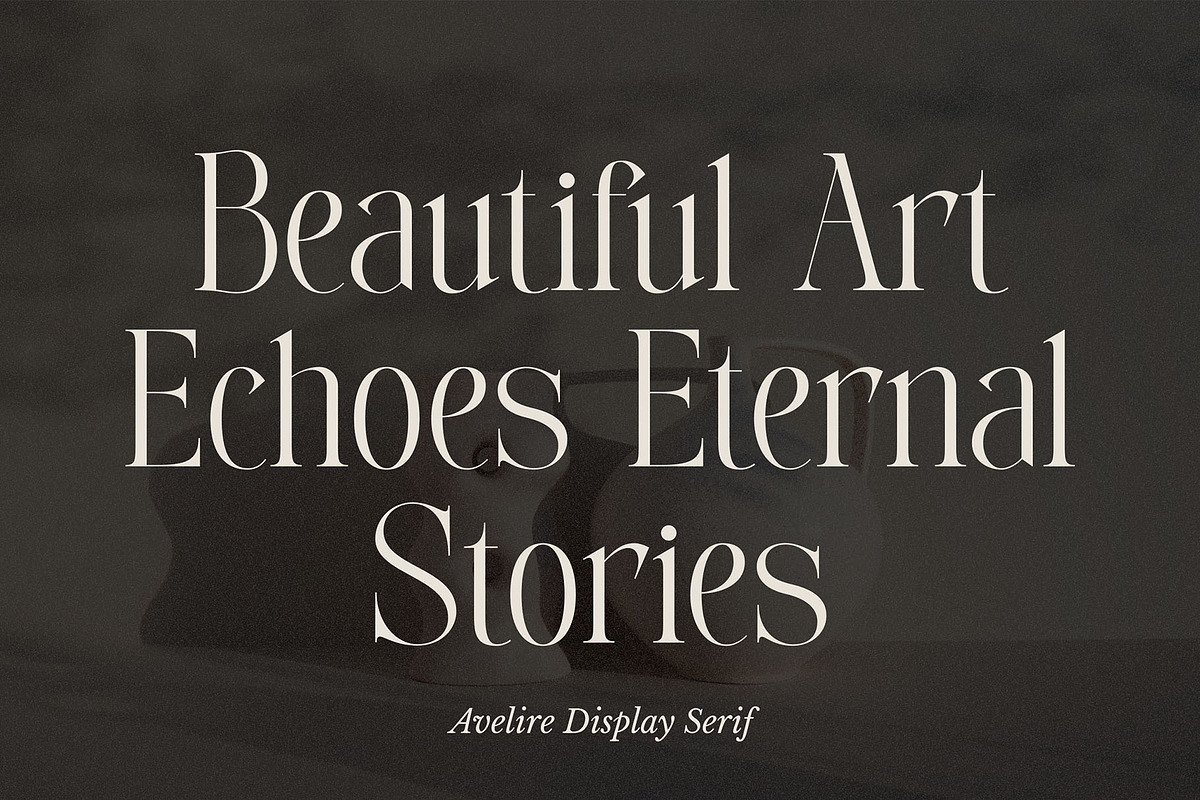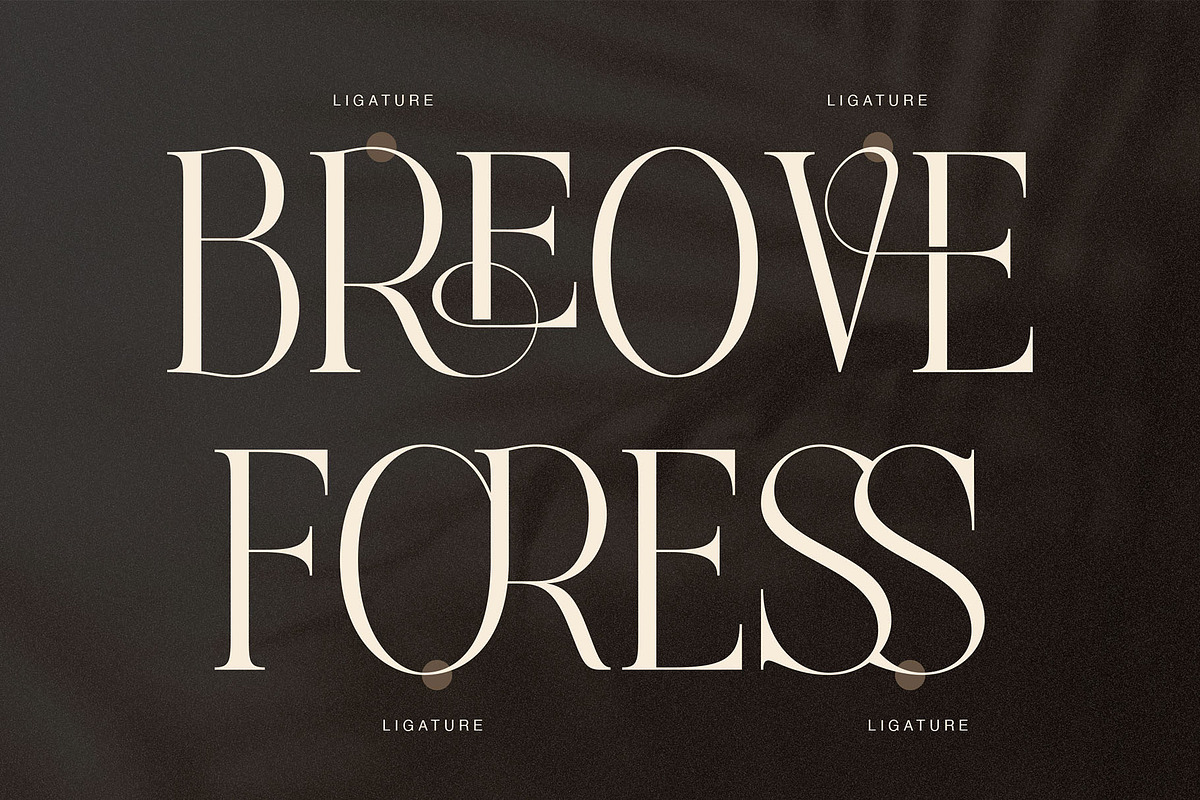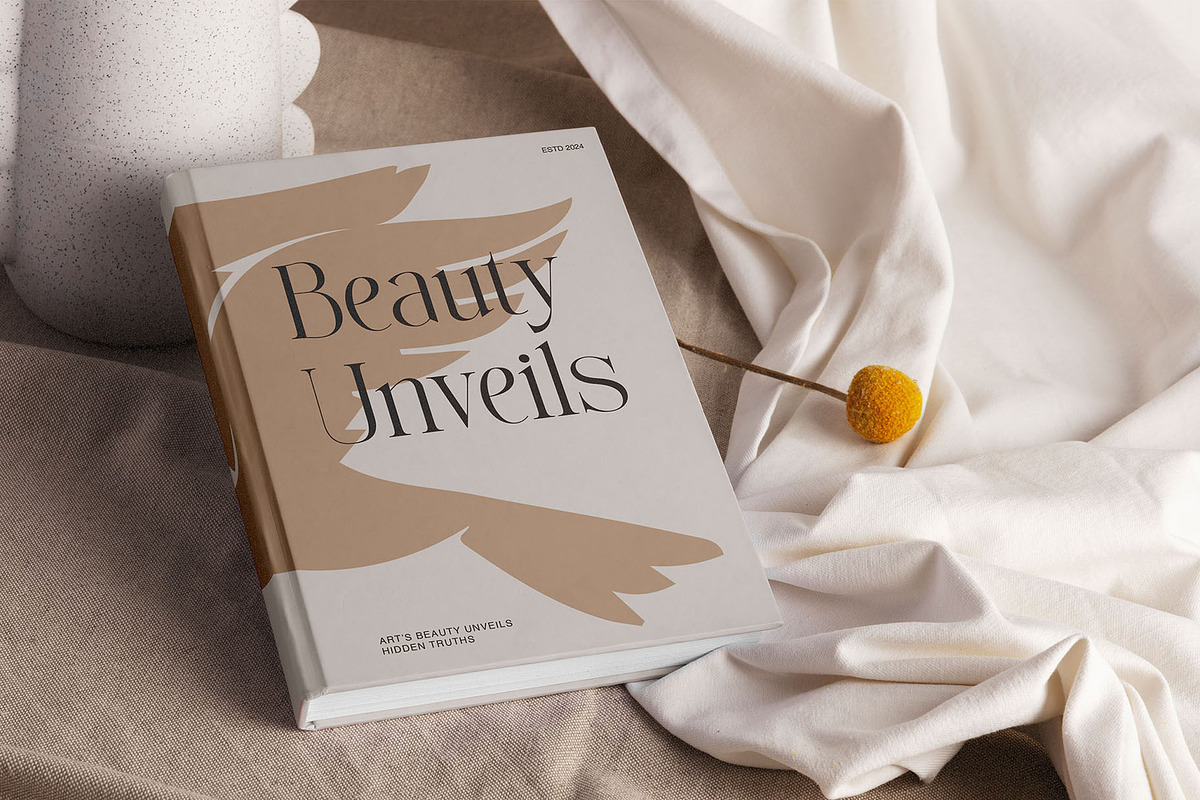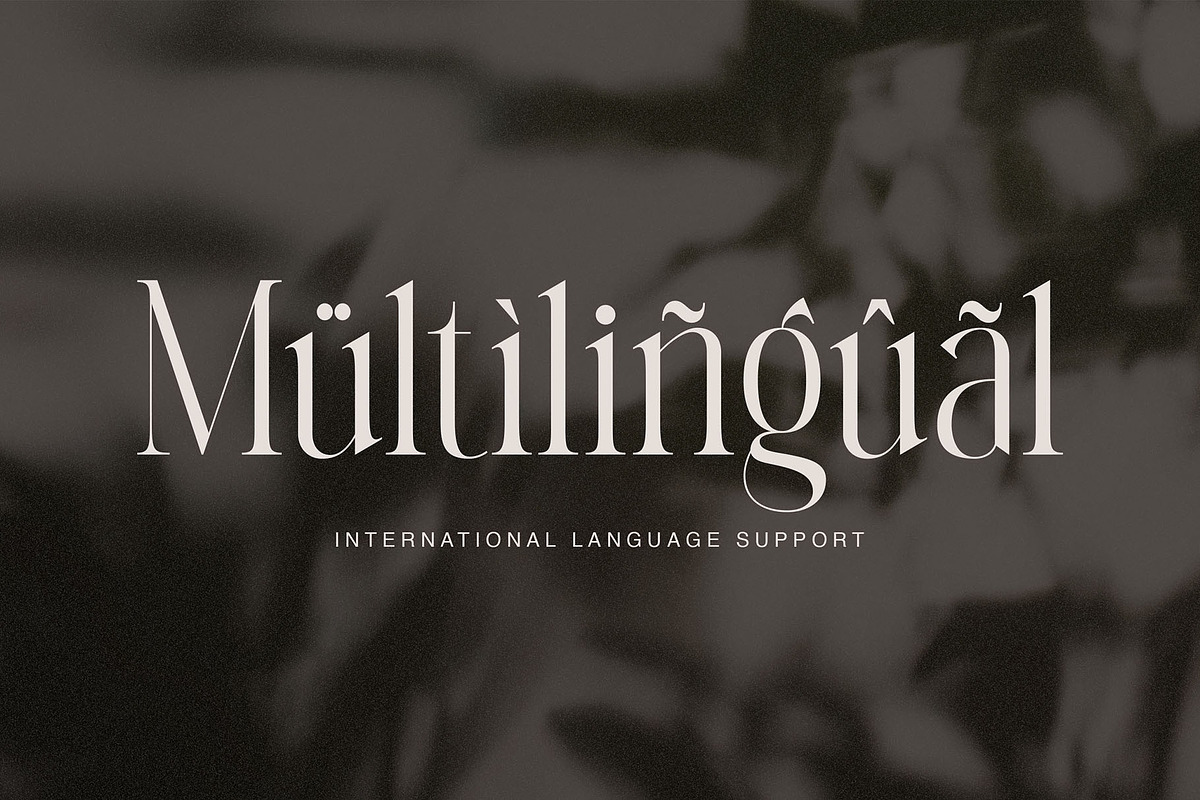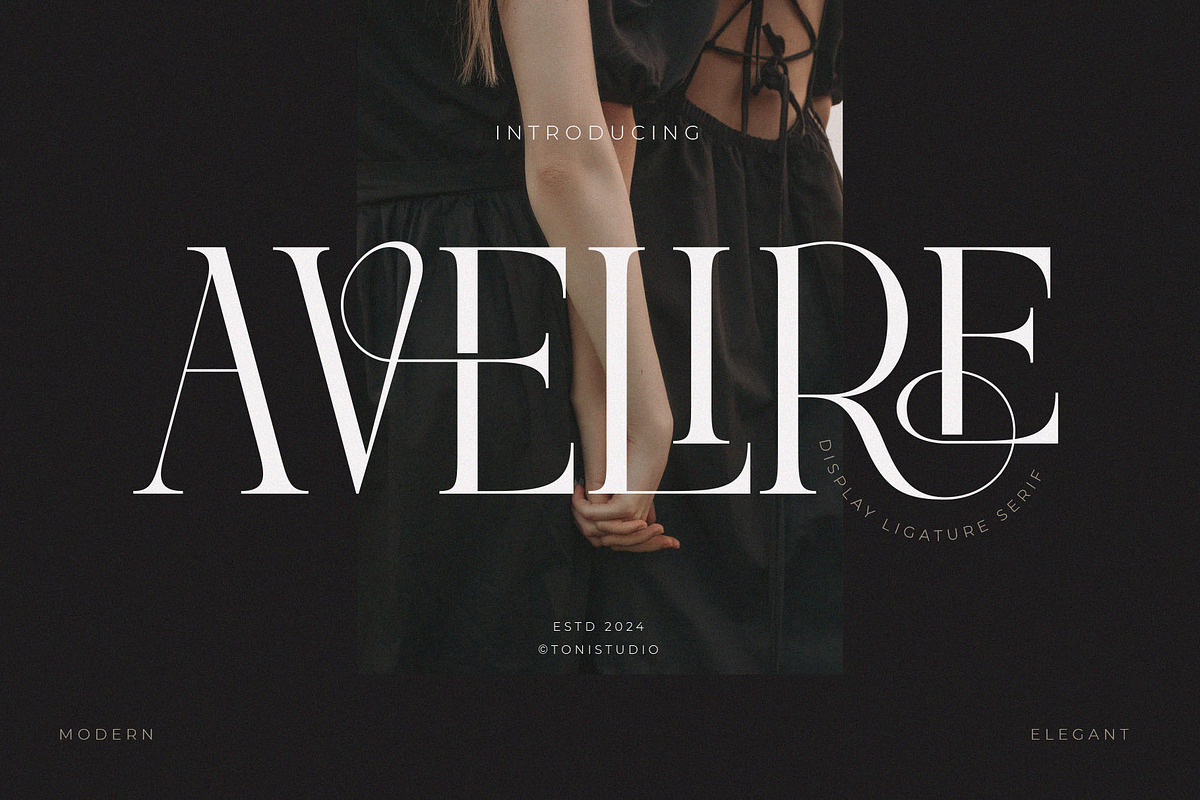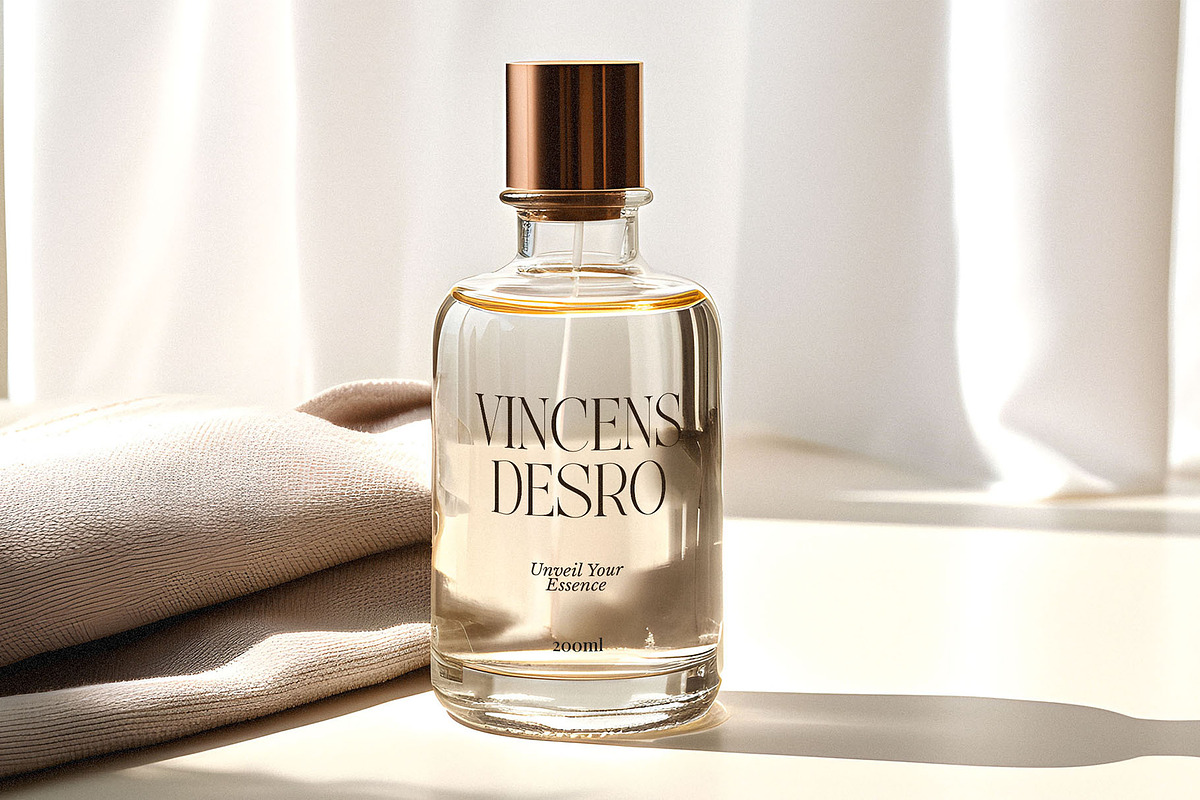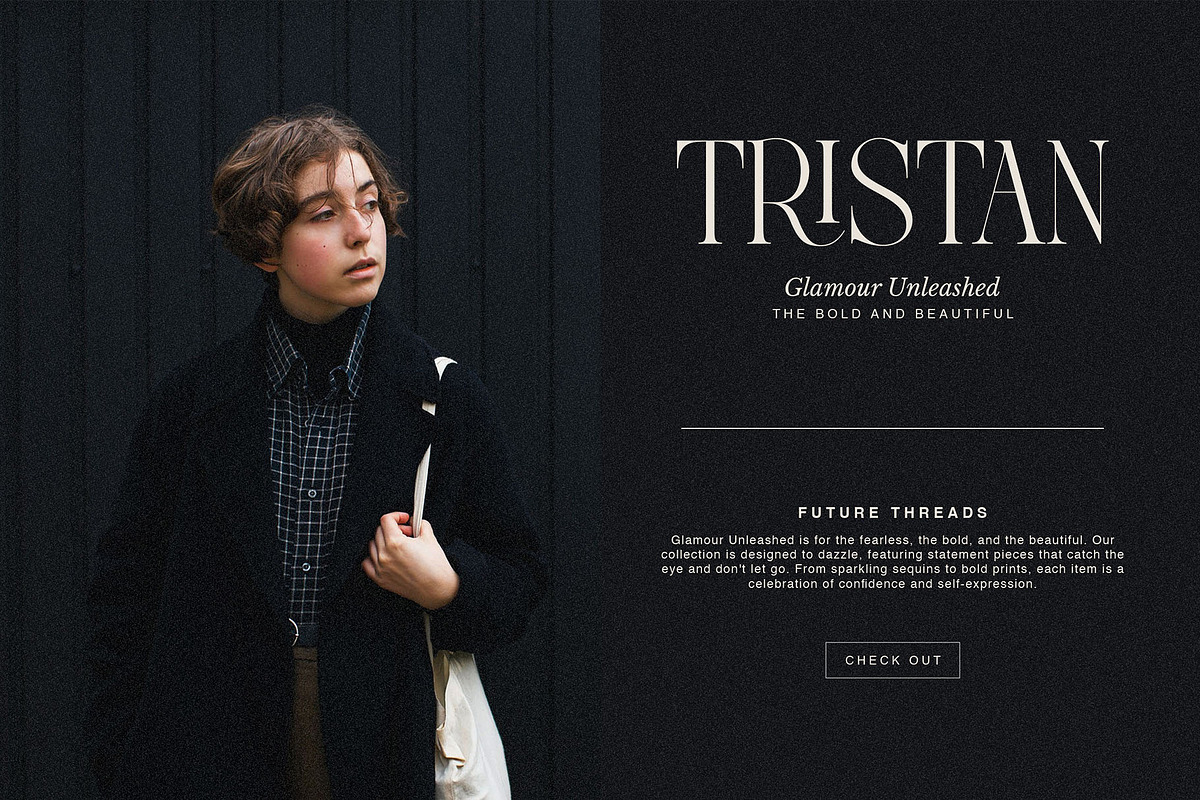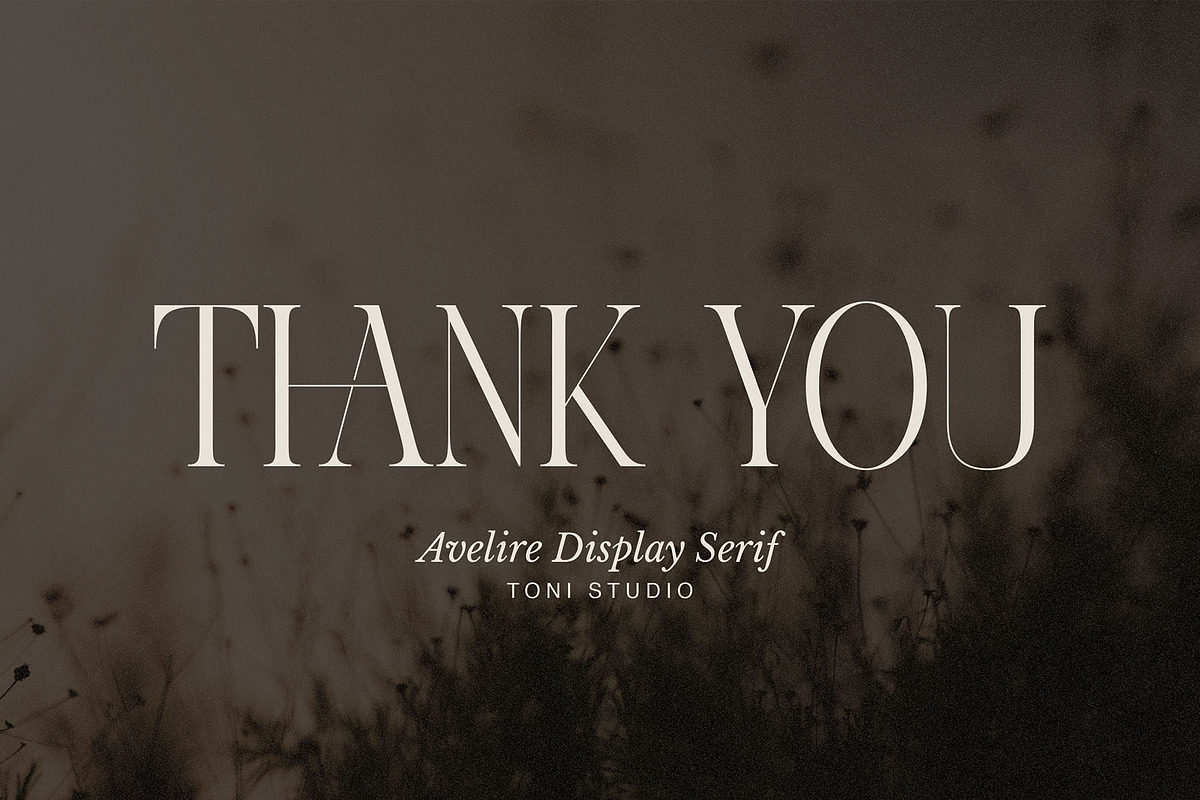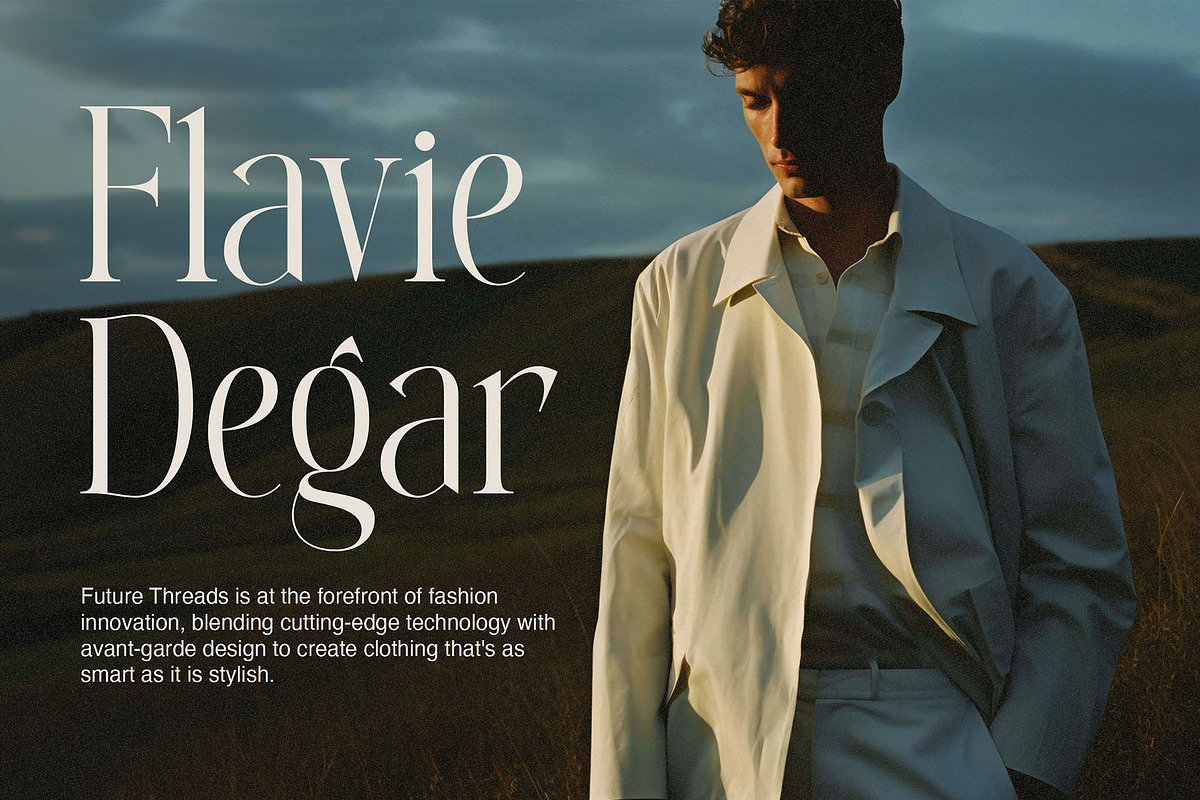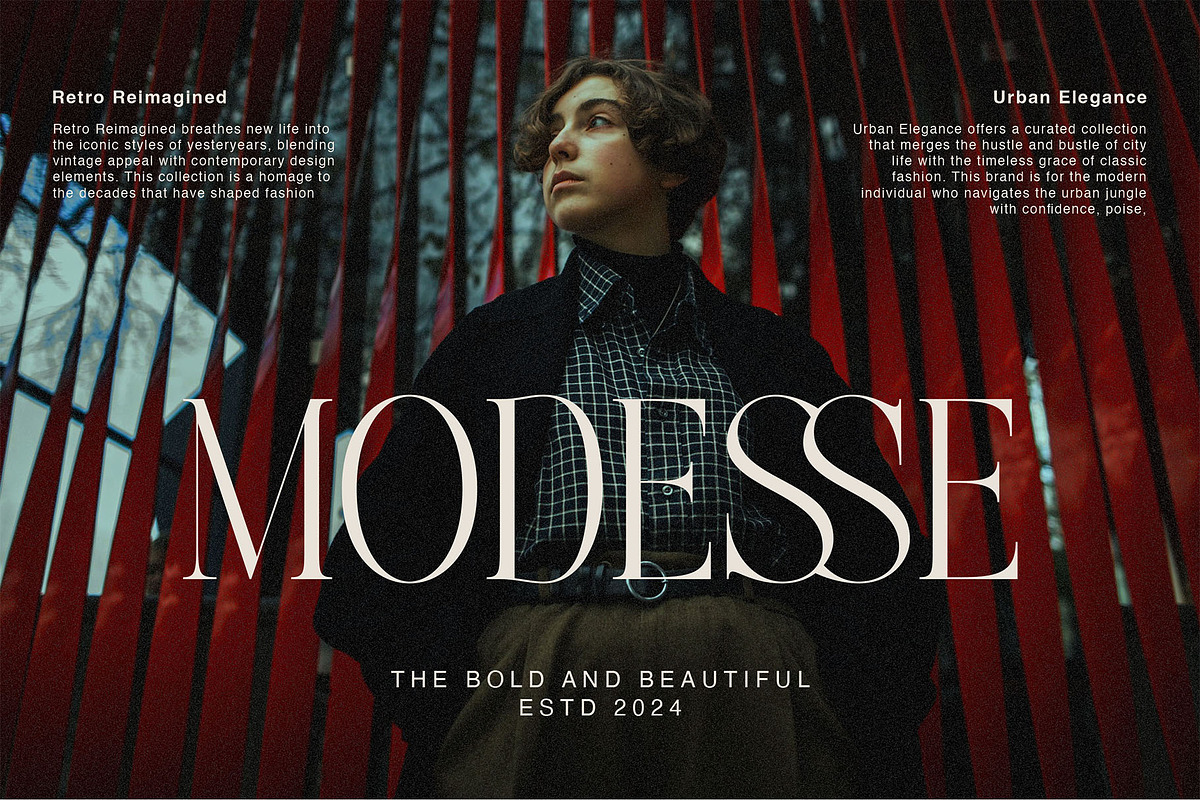
Avelire-modern ligature
introducing our new Modern Ligature AVELIRE with Ligature styles perfect for branding, logos, invitations, masterheads and more. Based on our imagination, we tried to brainstorm and created this font to make this idea come true. This is perfect for BRANDS and LOGO DESIGNS. You will get a classy, elegant and of course unique logo with this font. Thank you so much for checking out my shop, and please get in touch if you have any questions! Fatoninurman1995@gmail.com